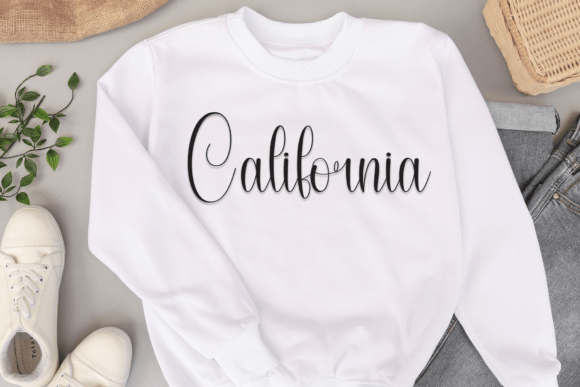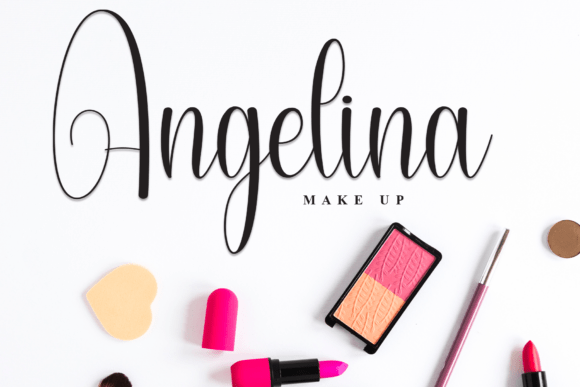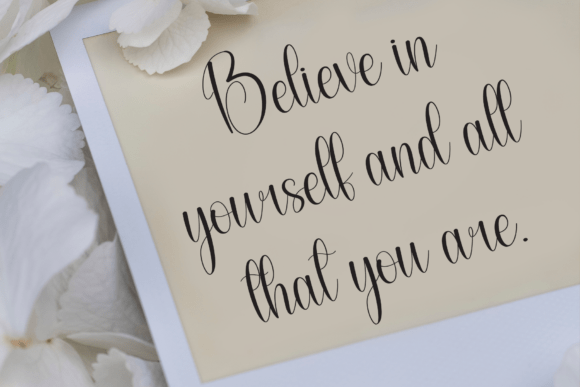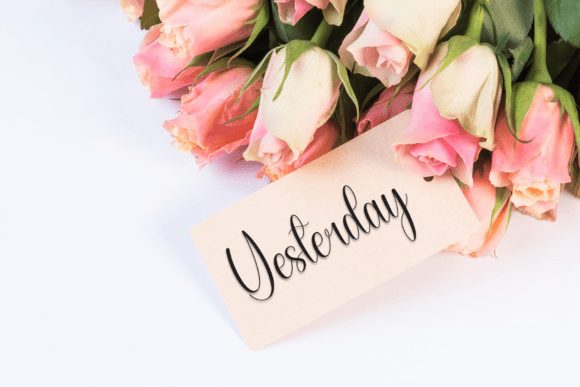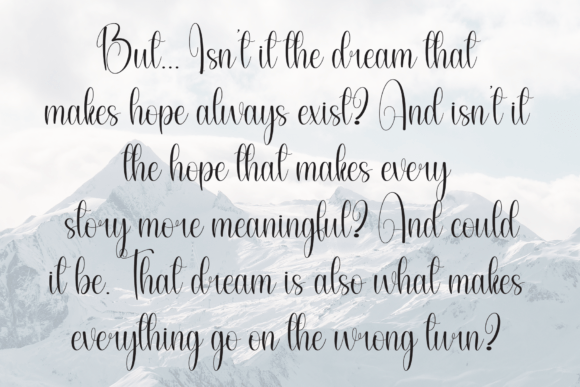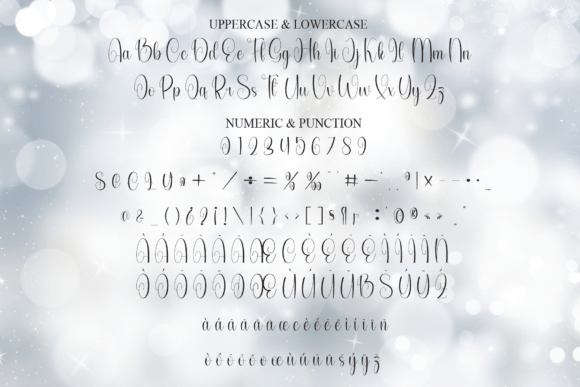
Introducing Brilliant Font: Elevate Your Designs with Elegance and Charm
In the world of typography, fonts play a crucial role in conveying the tone and personality of a design. For designers and crafters seeking to add a touch of sophistication and elegance to their work, the Brilliant Font is an exceptional choice. This stylish handwritten script font is designed to exude charm and refinement, making it perfect for a variety of creative projects.
The Essence of Brilliant Font
Brilliant Font is characterized by its fluid, graceful strokes that dance across the page with elegance and poise. Its smooth curves and natural flow create a timeless, refined look that is sure to captivate audiences. This beautiful script font is meticulously crafted to add a personal and sophisticated touch to any design, making it an ideal choice for:
• Branding: Establish a luxurious and high-end image for your business with Brilliant Font.
• Invitations: Create stunning wedding invitations, birthday cards, and other celebratory announcements that exude elegance.
• Stationery: Elevate your letterheads, greeting cards, and journals with a touch of refinement and sophistication.
Key Features of Brilliant Font
So, what makes Brilliant Font stand out from the rest? Here are some of its key features:
• Fluid Strokes: Brilliant Font boasts smooth, connected strokes that create a sense of movement and fluidity.
• Elegant Curves: The font’s natural curves and rounded edges add a touch of warmth and approachability.
• Highly Readable: Despite its elegant nature, Brilliant Font remains highly readable, even at smaller sizes.
• Versatile: Use Brilliant Font for a wide range of design projects, from digital to print.
Tips for Using Brilliant Font Effectively
To get the most out of Brilliant Font, consider the following tips:
• Pair with Contrasting Fonts: Combine Brilliant Font with bold, sans-serif fonts to create a striking contrast.
• Experiment with Colors: Try pairing Brilliant Font with rich, jewel-toned colors to add depth and luxury to your design.
• Pay Attention to Spacing: Ensure that your text has sufficient spacing to maintain readability and visual flow.
Why Choose Brilliant Font?
In a sea of fonts, Brilliant Font stands out for its unique blend of elegance, charm, and sophistication. Here are just a few reasons why designers and crafters love Brilliant Font:
• Timeless Appeal: Brilliant Font’s classic design ensures that it will remain relevant for years to come.
• Easy to Use: This font is incredibly easy to use, even for those with limited design experience.
• High-Quality Design: Brilliant Font is crafted with attention to detail, ensuring a high-quality design that will elevate your work.
Brilliant Font is a stunning handwritten script font that is sure to elevate your designs with its elegance and charm. Whether you’re a designer, crafter, or DIY enthusiast, this versatile font is perfect for a wide range of creative projects. With its fluid strokes, elegant curves, and highly readable design, Brilliant Font is an exceptional choice for anyone seeking to add a touch of sophistication to their work.